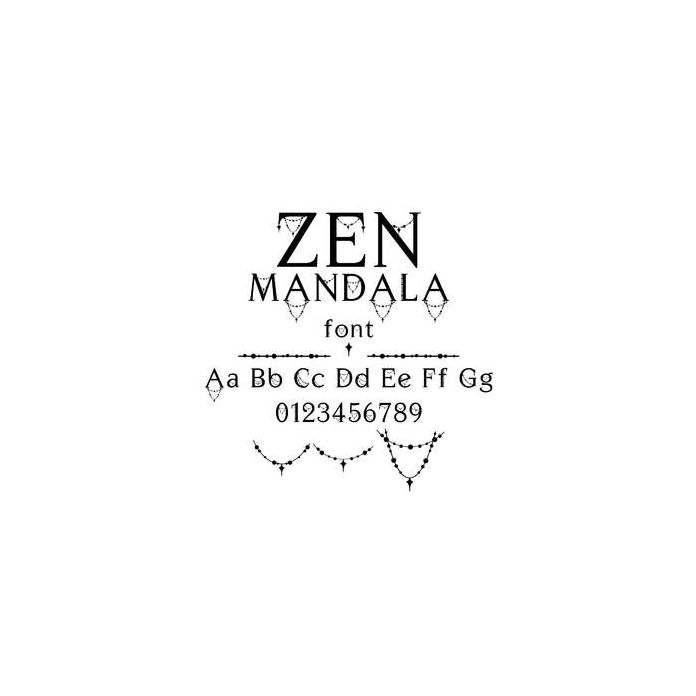
Zen Mandala Font with decorative Mandala drops - upper and lowercase, numbers, punctuation and accents all allocated to keys and accessible via character map or glyphs panel.